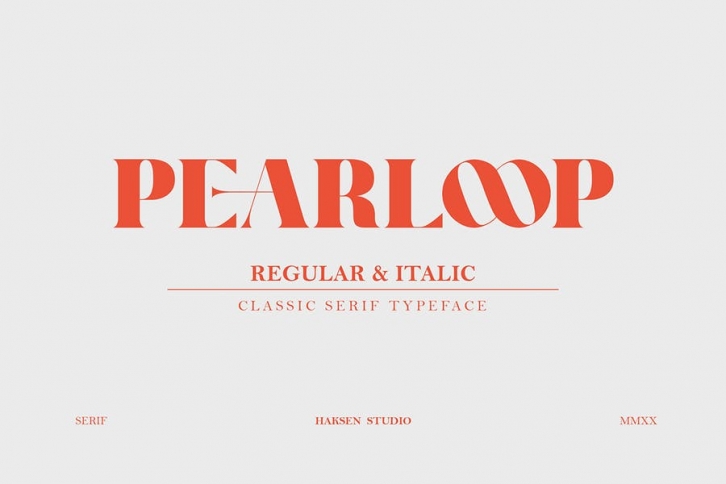
PEARLOOP is a classic serif style with unique alternates feel nice balanced. Provide many variant ligatures style make the design letter looks incredible. Honestly it works perfectly for headlines, logos, posters, packaging and much more.
Font Features :
- Regular version
- Character set A-Z in uppercase and lowercase
- Alternates in Uppercase and Lowercase
- Ligatures in Uppercase and Lowercase
- Numerals & Punctuation
- Accented Characters
- Multiple Languages Supported